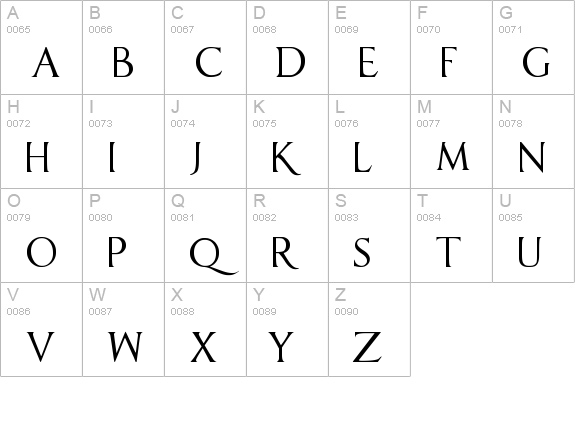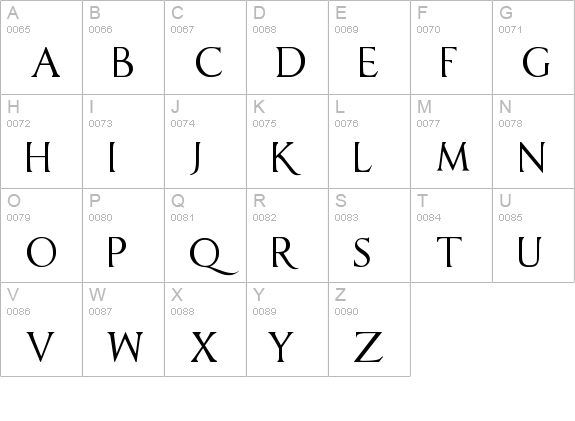
Sell Your Soul Font Details
The Sell Your Soul font is a mesmerizing and captivating typeface that will ignite your creative spirit. With its intricate and unique letterforms, this font exudes an air of mystery and intrigue. Its sleek and stylish design appeals to those who seek a touch of edginess in their projects. What sets Sell Your Soul apart is that it is not only visually stunning but also freely available to download. Yes, you read that right! This extraordinary font can be yours without spending a single penny. It's the perfect opportunity to add a touch of elegance and sophistication to your designs without breaking the bank. Whether you're a graphic designer, a web developer, or simply an enthusiast looking to enhance your personal projects, Sell Your Soul font is the ideal choice. Its versatility allows it to seamlessly blend with a variety of themes, making it suitable for everything from logo design to book covers, posters, and more. To access this remarkable font, simply head over to FontsMarket.com, where it can be downloaded for free. With just a few clicks, you'll have the power to transform your creations and make them truly stand out. Don't miss out on this incredible opportunity to elevate your designs with the captivating allure of Sell Your Soul font.